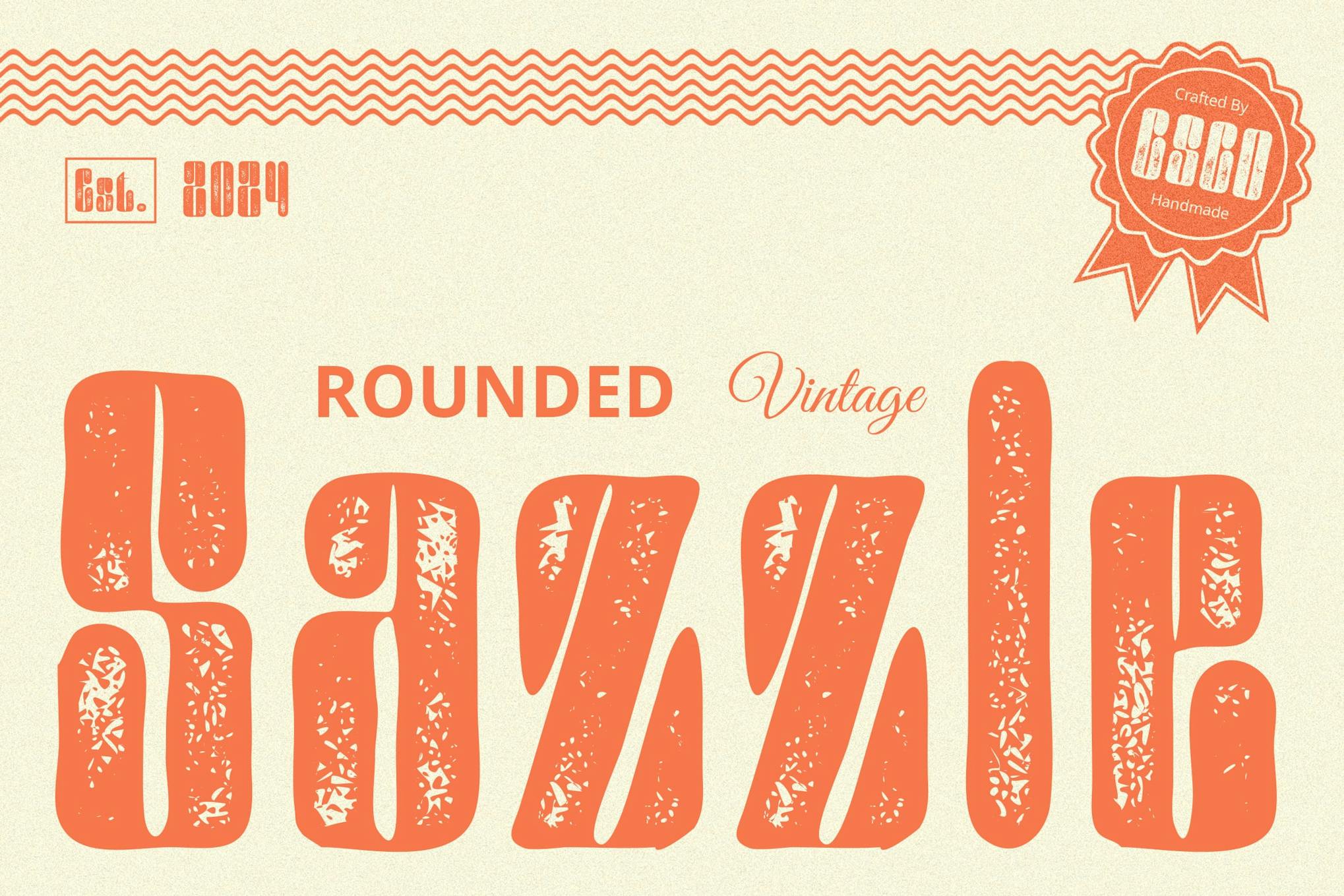
Sazzle Rounded Vintage Font
Sazzle Rounded Vintage Font is perfect for friendly retro branding, cheerful diner signage, vintage toy packaging, nostalgic children's products, classic ice cream parlor graphics, retro fashion campaigns, warm hospitality branding, playful vintage posters, and charming family-oriented design applications.
What makes Sazzle Rounded Vintage Font exciting is its delightful combination of warm vintage charm with friendly rounded edges that creates an irresistibly approachable and joyful aesthetic. This endearing typeface features soft curves, gentle character forms, and nostalgic details that evoke the optimistic spirit and wholesome appeal of classic American design from the golden age of family entertainment. The font's cheerful personality and vintage warmth make it ideal for brands that need to communicate friendliness, trustworthiness, and nostalgic comfort through typography that feels like a warm embrace from simpler, happier times.
Sazzle Rounded Vintage Font family includes multiple charming variations: Regular, Bold, Light, Condensed, Extended, and Outline versions. Each style maintains the distinctive rounded vintage aesthetic while offering different levels of warmth and visual weight, providing designers with versatile tools for creating cohesive friendly typography systems and authentic period-appropriate design applications that radiate positivity.
Design professionals appreciate Sazzle Rounded Vintage Font for its versatility and universal appeal. The font's balanced proportions and friendly curves work beautifully in both intimate family communications and large-scale community campaigns. Its cheerful presence appeals to diverse audiences who value authenticity, comfort, and positive vintage experiences.
Whether used for family business branding or contemporary comfort-focused campaigns, Sazzle Rounded Vintage Font consistently delivers authentic friendly typography that resonates with audiences seeking genuine warmth, nostalgic comfort, and the timeless appeal of wholesome vintage design that celebrates community and family values.